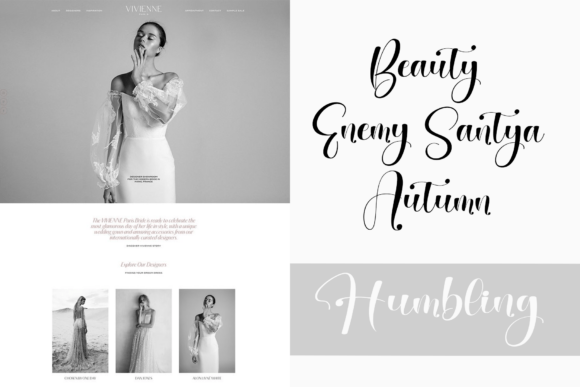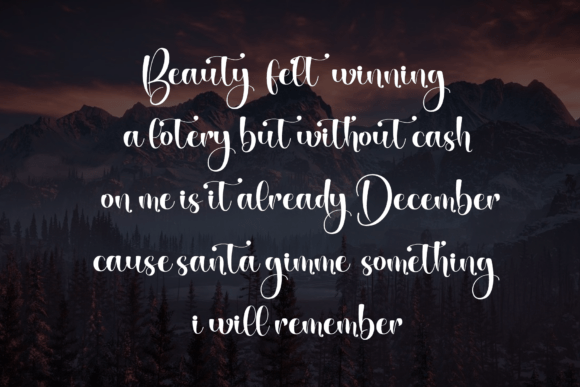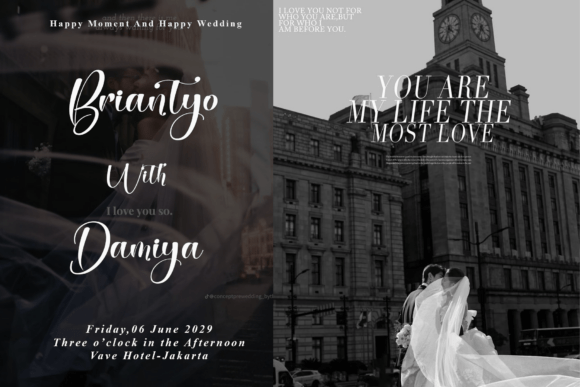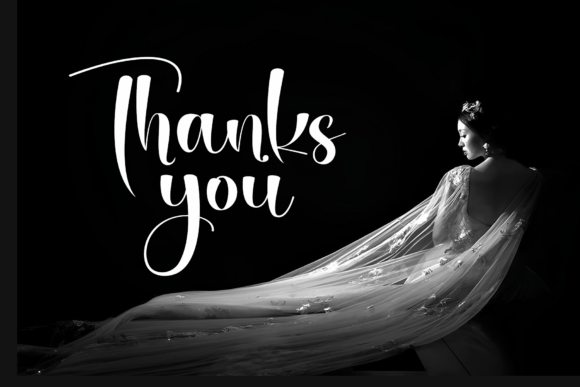
Introducing Angelina Font: The Sweet and Cursive Handwritten Font for Elegant Designs
Are you looking for a font that can add a touch of elegance and romance to your designs? Look no further than Angelina Font, a sweet and cursive handwritten font that is perfect for a variety of design projects. With its gentle and flowing curves, Angelina Font is sure to make your designs stand out and leave a lasting impression.
What Makes Angelina Font Special?
Angelina Font is a unique and beautiful font that is designed to add a joyful and romantic touch to your designs. Its cursive and handwritten style gives it a personal and elegant feel that is perfect for a range of design projects, from branding and logos to wedding invitations and greeting cards.
One of the things that sets Angelina Font apart is its versatility. It can be used for a wide range of design ideas, from fashion and beauty to marketing and promotion. Whether you’re looking to create a luxurious and high-end brand or a playful and whimsical design, Angelina Font is the perfect choice.
Angelina Font is perfect for designers and crafters who want to add a touch of elegance and sophistication to their designs. Here are just a few examples of the many design projects that Angelina Font is well-suited for:
- Branding and Logos: Use Angelina Font to create a luxurious and high-end brand that stands out from the competition.
- Wedding Invitations and Stationery: Add a touch of romance and elegance to your wedding invitations and stationery with Angelina Font.
- Greeting Cards: Use Angelina Font to create beautiful and heartfelt greeting cards for any occasion.
- Fashion and Beauty: Angelina Font is perfect for fashion and beauty brands that want to add a touch of elegance and sophistication to their designs.
- Marketing and Promotion: Use Angelina Font to create eye-catching and effective marketing materials that grab attention and leave a lasting impression.
Why Choose Angelina Font?
There are many reasons why Angelina Font is the perfect choice for designers and crafters. Here are just a few:
- Unique and Elegant Design: Angelina Font has a unique and elegant design that is sure to make your designs stand out.
- Versatile: Angelina Font can be used for a wide range of design projects, from branding and logos to wedding invitations and greeting cards.
- Easy to Read: Despite its elegant and cursive style, Angelina Font is easy to read and understand, making it perfect for body text and headlines.
- High-Quality: Angelina Font is a high-quality font that is designed to deliver exceptional results.
Tips for Using Angelina Font
Here are a few tips for using Angelina Font in your designs:
- Use it as a Headline Font: Angelina Font is perfect for headlines and titles, where its elegant and cursive style can really shine.
- Pair it with a Sans-Serif Font: For body text, pair Angelina Font with a sans-serif font to create a nice contrast and add visual interest to your design.
- Experiment with Colors: Angelina Font looks great in a range of colors, from soft pastels to rich jewel tones. Experiment with different colors to find the perfect look for your design.
Angelina Font is a beautiful and elegant font that is perfect for designers and crafters who want to add a touch of sophistication and romance to their designs. With its unique and cursive handwritten style, Angelina Font is sure to make your designs stand out and leave a lasting impression. Whether you’re working on a branding project, wedding invitation, or greeting card, Angelina Font is the perfect choice.